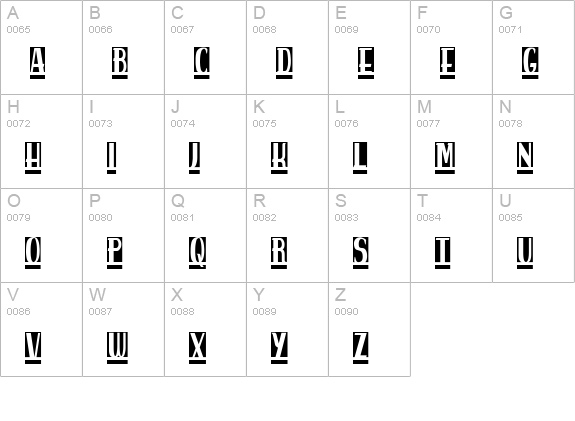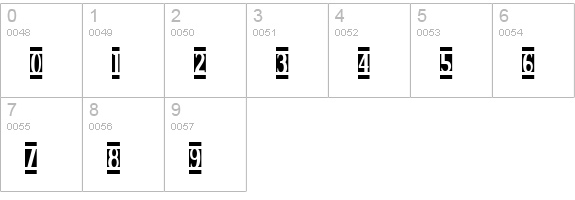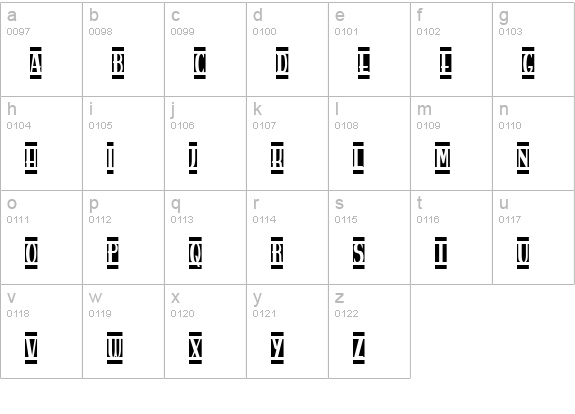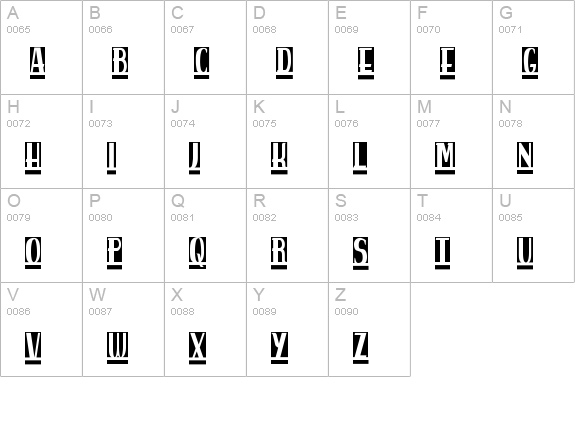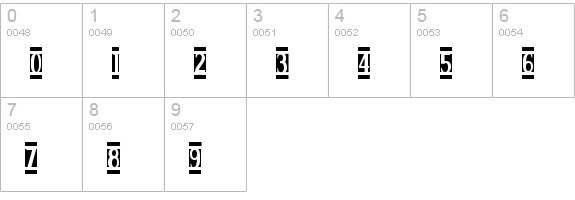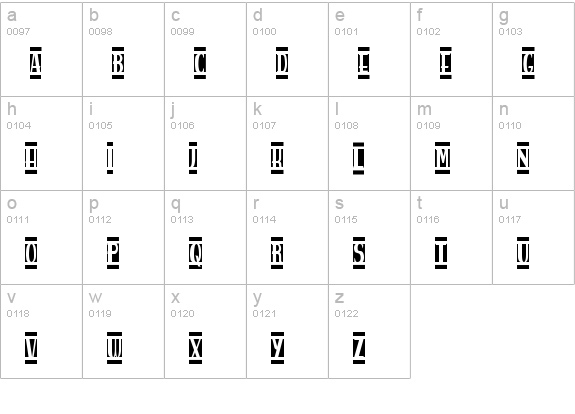
spanky's bungalow blanco Font Details
Spanky's Bungalow Blanco Font is a visually stunning typeface that exudes elegance and sophistication. With its clean lines and modern style, this font is perfect for a wide range of design projects, including logos, branding, invitations, and more. This versatile font features a unique blend of simplicity and creativity, making it suitable for both professional and personal use. Its sleek and minimalist design will add a touch of class to any project, while its legibility ensures that your message is conveyed with clarity. But what truly sets Spanky's Bungalow Blanco Font apart is its accessibility. It is available free of charge to download at FontsMarket.com, providing designers, artists, and enthusiasts with a high-quality resource that won't break the bank. Whether you're a seasoned designer or just starting out, Spanky's Bungalow Blanco Font offers endless possibilities. Its timeless appeal and timeless design make it a go-to choice for any project, whether it's a corporate website, a wedding invitation, or a creative poster. So don't miss out on this incredible opportunity to elevate your designs with Spanky's Bungalow Blanco Font. Download it for free at FontsMarket.com and unlock a world of creativity and inspiration.